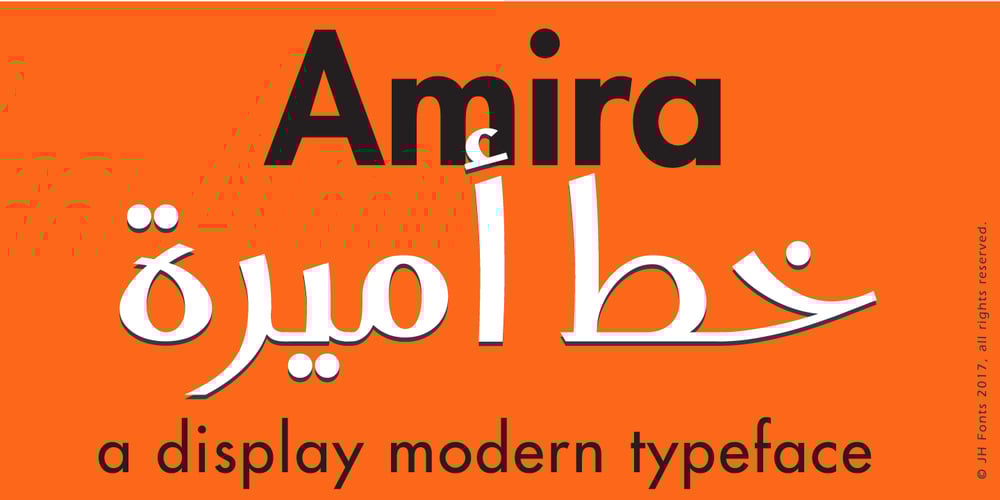
JH Amira
JH Amira font
JH Amira Font Family was designed by Joe Hatem and published by JH Fonts. JH Amira contains 2 styles and family package options. JH Amira is a display modern typeface; it is designed based on Art Deco style, typical for fashion magazines headlines, logos & titles.